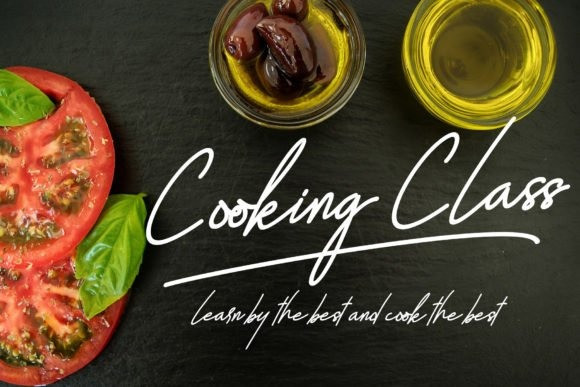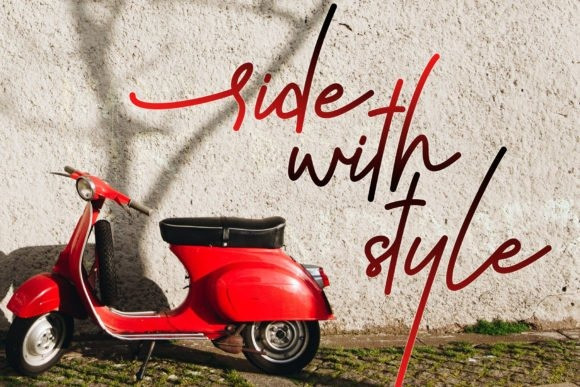
Sky Fly Font
Sky Fly Handwritten Font
It’s a modern and elegant handwritten font created by Nox Studio with varying thickness and a charming gesture. It is the best choice for creating eye catching logos, branding and quotes. This font is PUA encoded which means you can access all of the glyphs and swashes with ease!